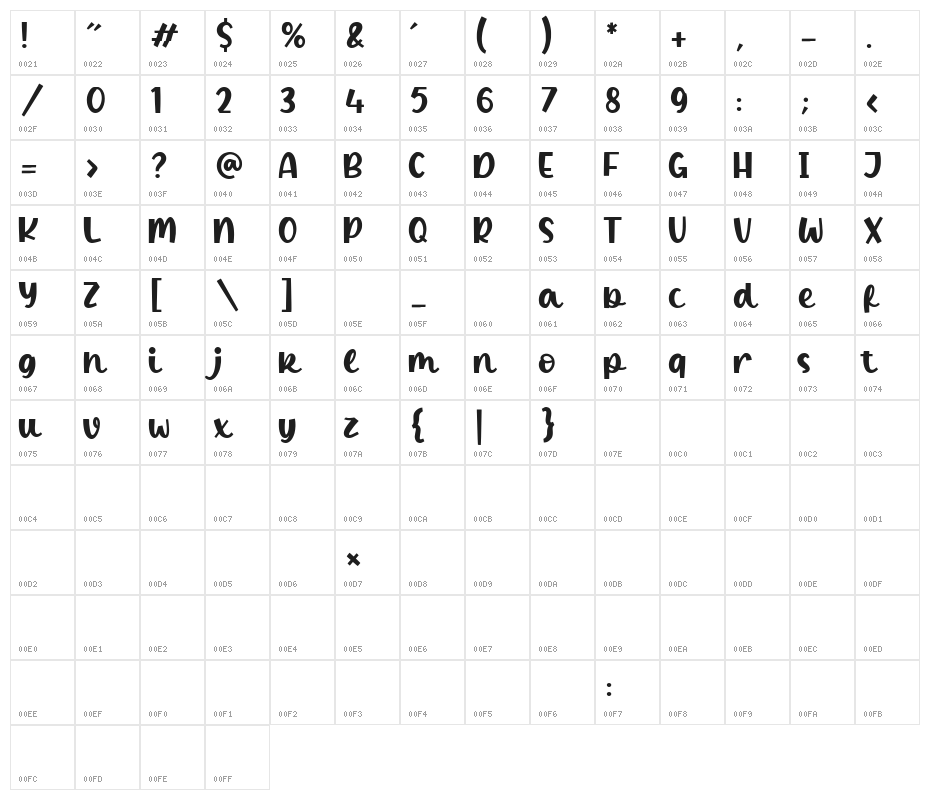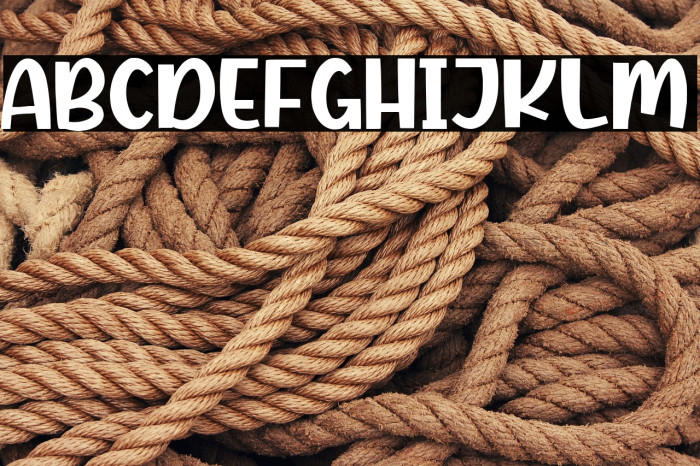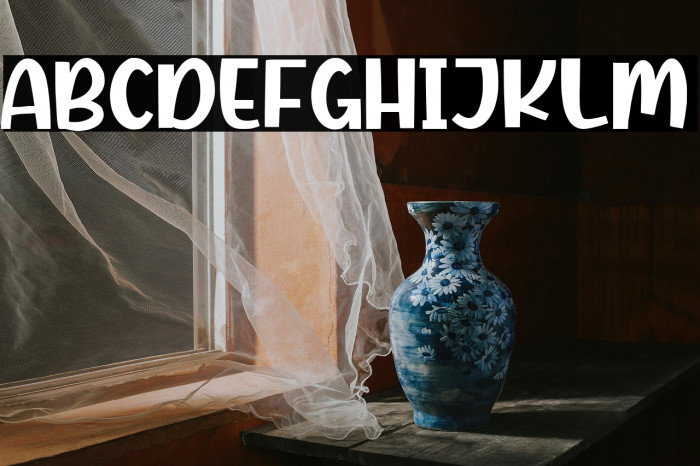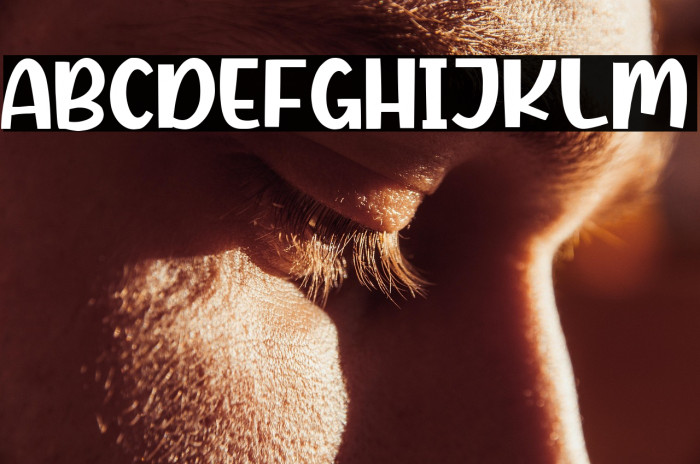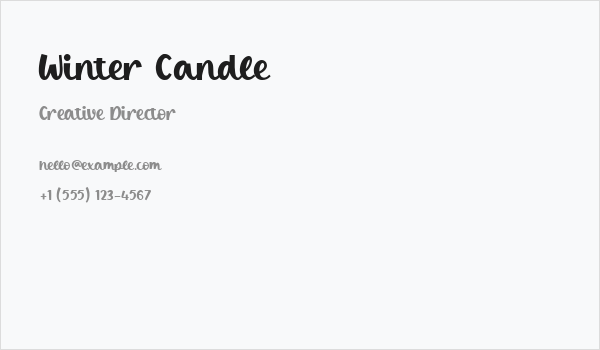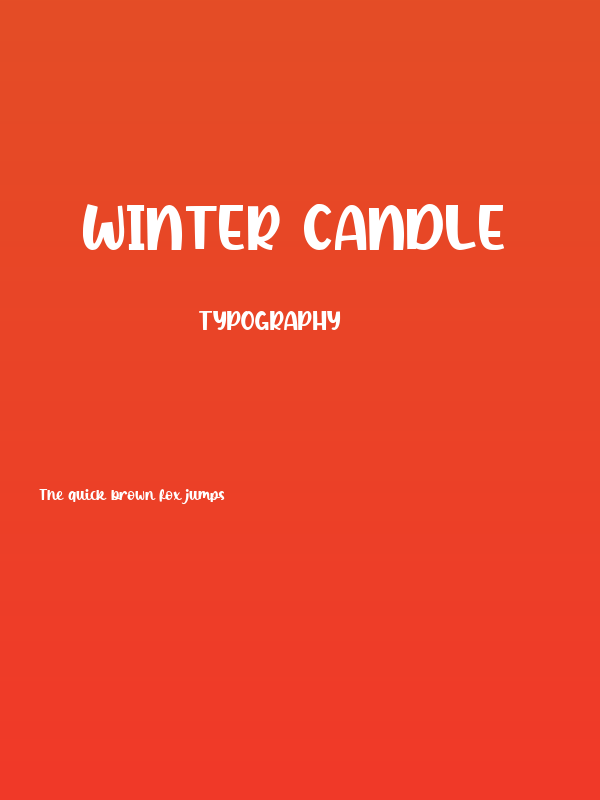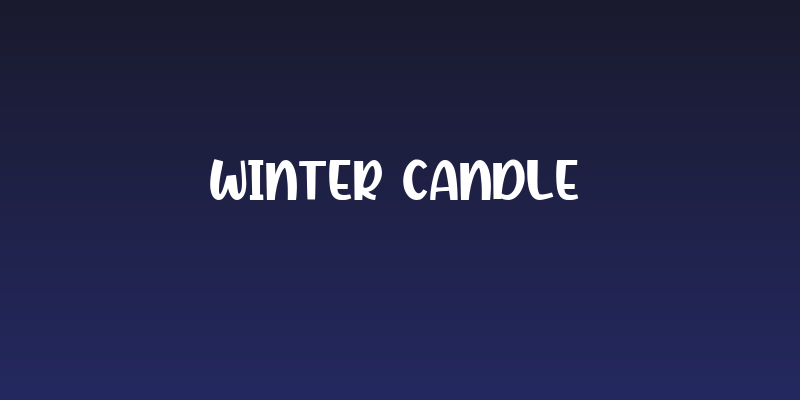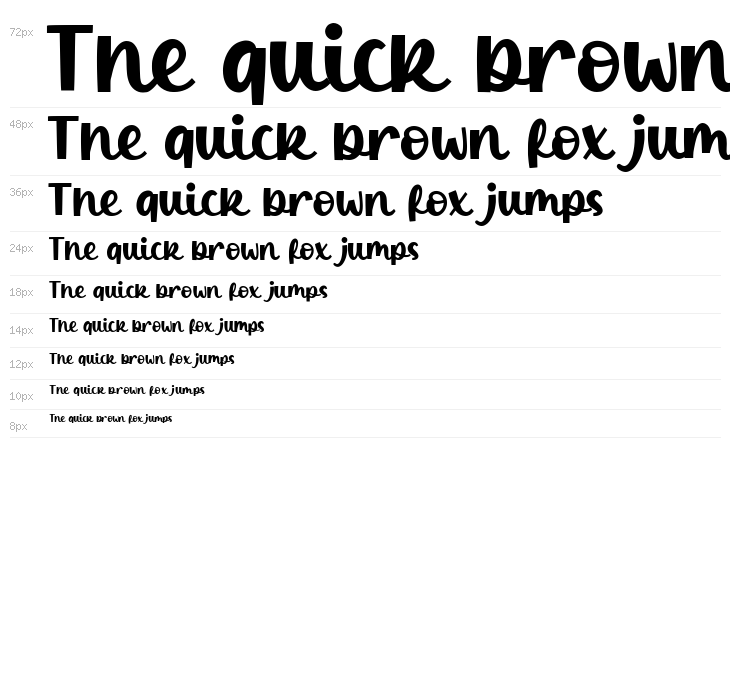
Winter Candle Font
Winter Candle Description
This font features a playful and whimsical style, characterized by its bold and rounded letterforms. The uppercase letters have a consistent height, with a slight slant that adds a dynamic feel. The lowercase letters are more fluid, with smooth curves and loops that enhance its casual appearance. The numerals are bold and easily readable, maintaining the playful aesthetic. Special characters are well-integrated, matching the overall style with a touch of creativity. This font's unique charm makes it suitable for projects that require a friendly and approachable look.
| Proposed Projects | Ideal for children's books, playful branding, greeting cards, and casual invitations. |